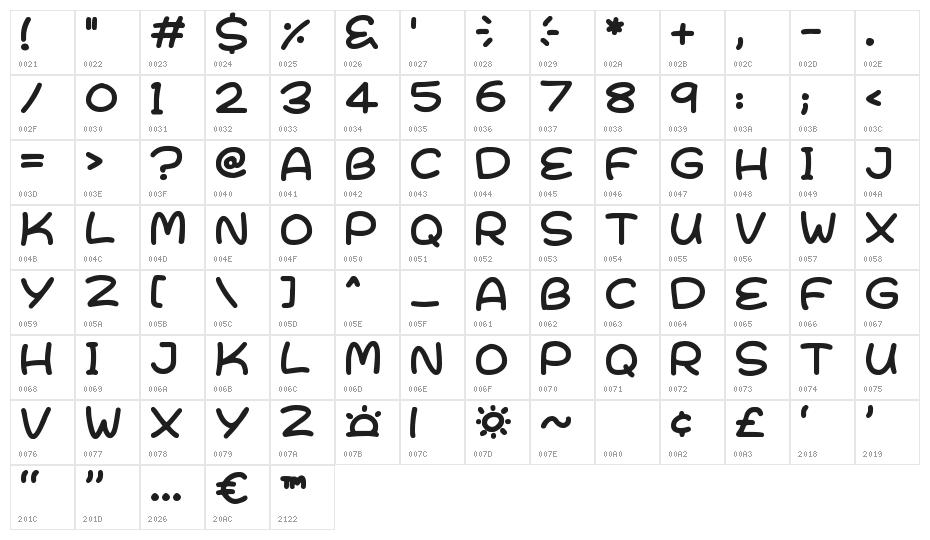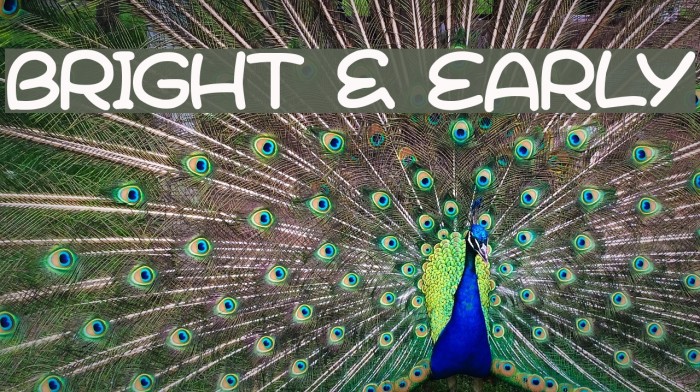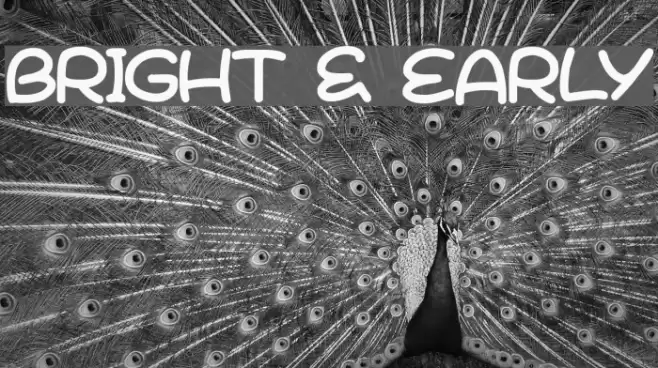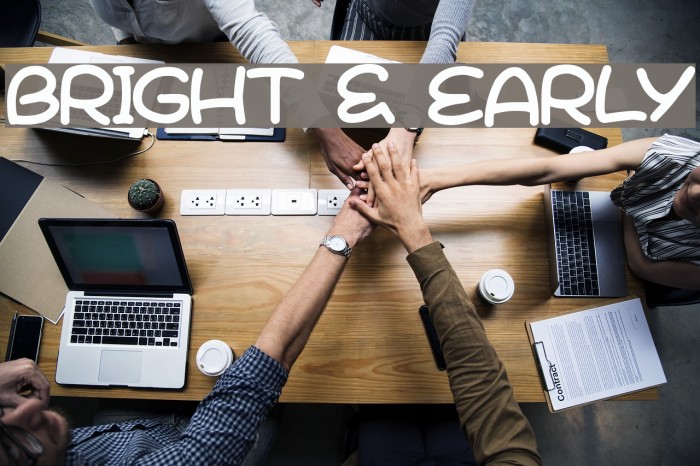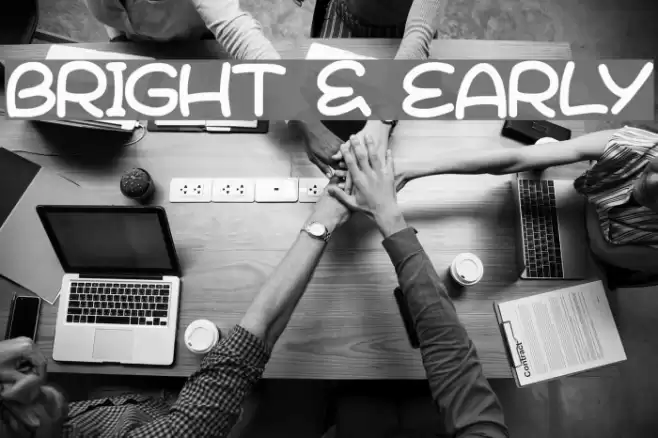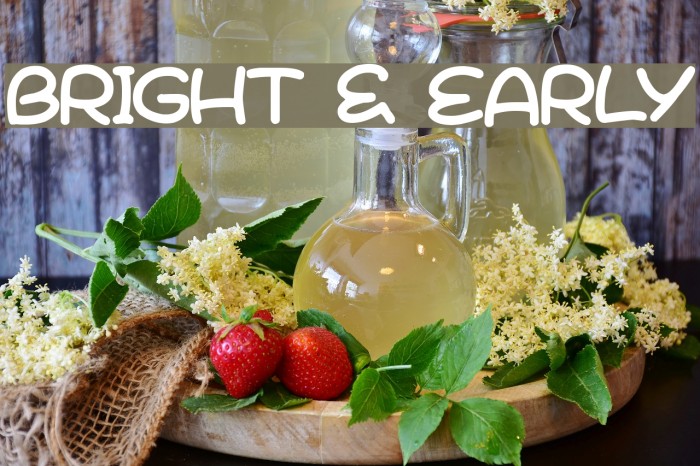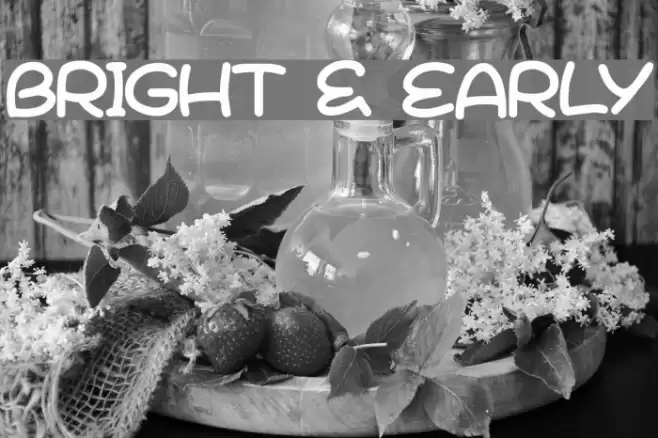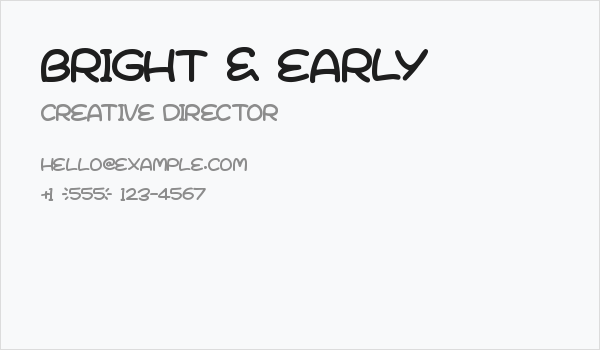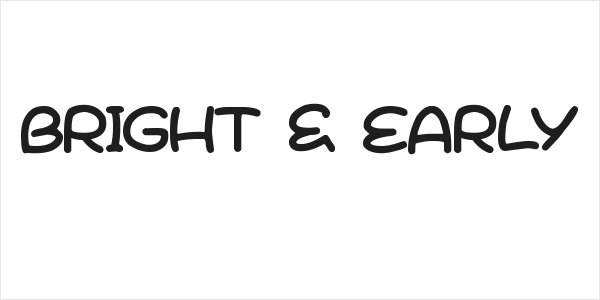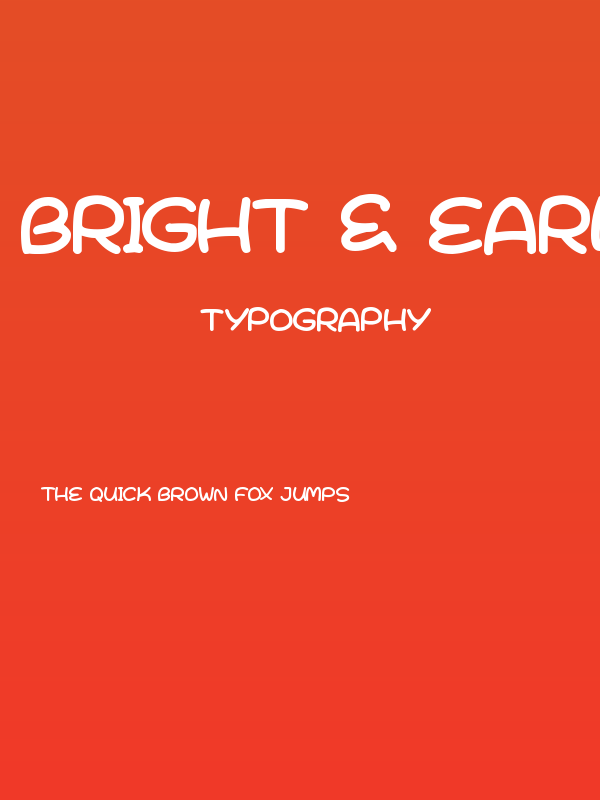
Bright & Early Font
Bright & Early Description
This font features a playful and rounded style, characterized by its smooth curves and friendly appearance. The letters are bold and slightly condensed, giving a sense of warmth and approachability. The uniform stroke width and rounded terminals contribute to its casual and informal look, making it ideal for projects that require a touch of fun and creativity. The numerals and special characters maintain the same playful aesthetic, ensuring consistency across all text elements.